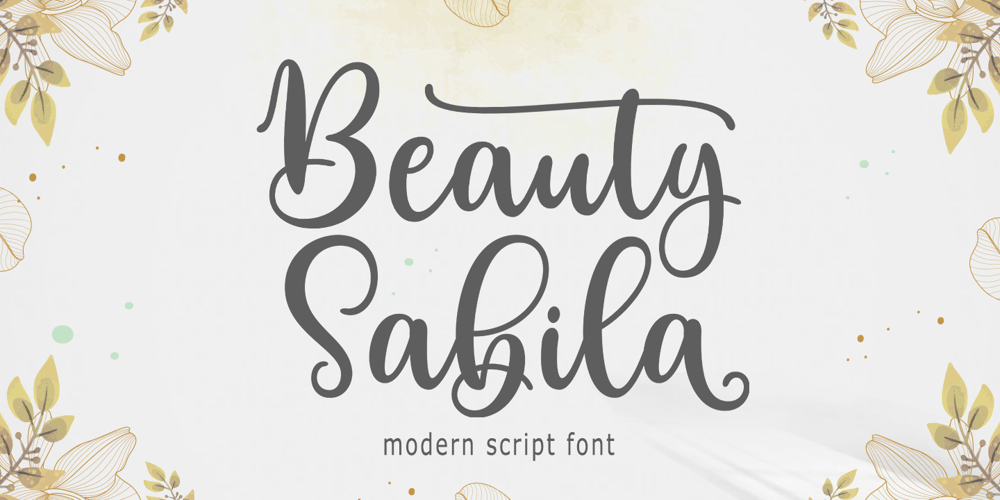
Beauty Sabila Font Family was designed by Muhammad Taufik and published by Rastype Studio. Beauty Sabila contains 1 styles and family package options. Beauty Sabila Script are beautiful and modern fonts. Looks amazing on wedding invitations, thank you cards, mothers day card, quotes, greeting cards, logos, business cards and any other design.This font is PUA encoded which means you can access all glyphs and swashes with ease!The font includes OpenType features with alternative styles, ligatures, and multiple language support.